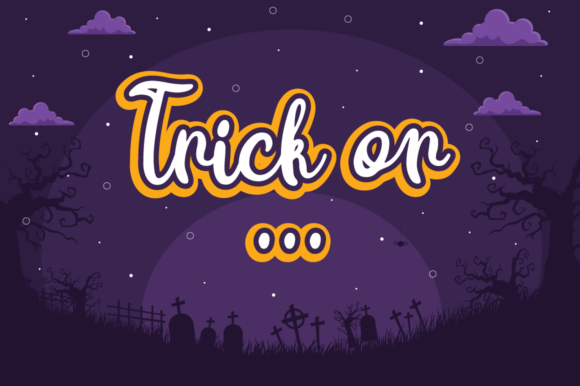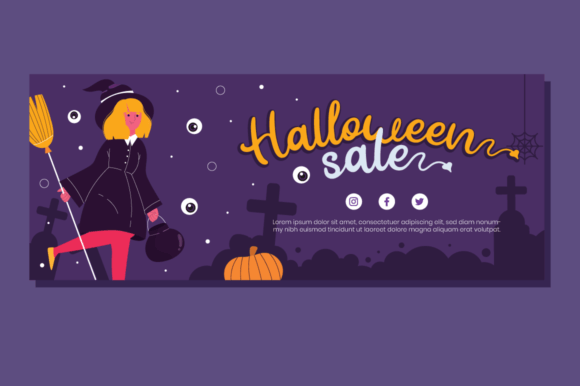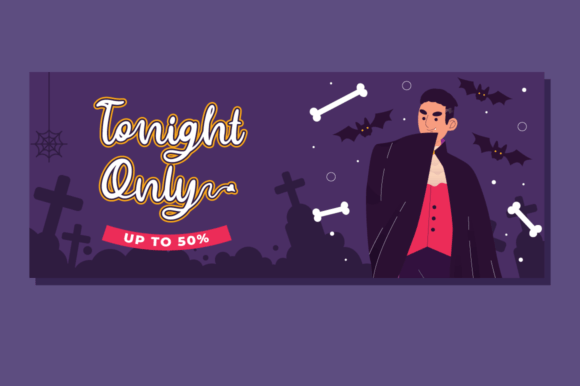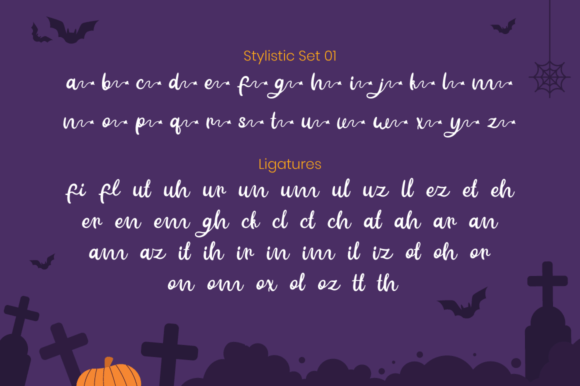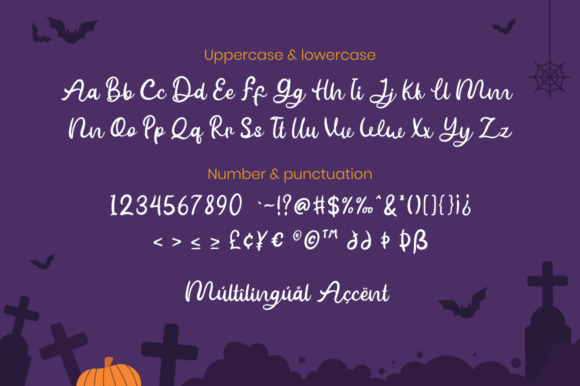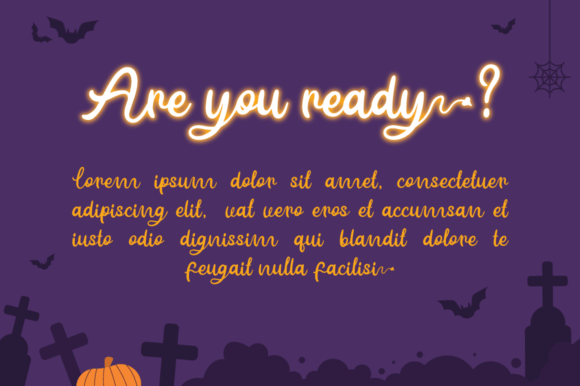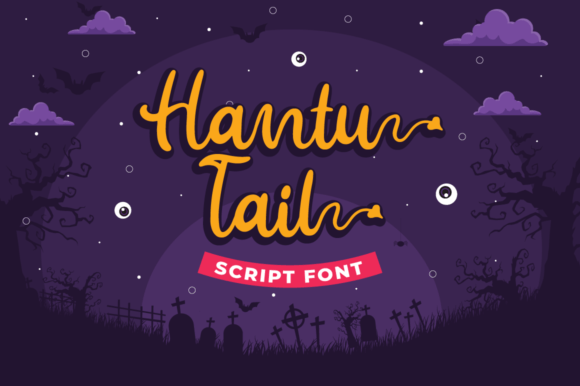
Hantu Tail Font: The Ultimate Halloween Script Font for Designers and Crafters
Are you looking for a font that will add a spooky touch to your designs this Halloween season? Look no further than the Hantu Tail Font! This distinct and incredibly fun Halloween script font is sure to fall in love with its incredibly versatile style, making it perfect for creating spectacular designs that will leave a lasting impression.
What is Hantu Tail Font?
Hantu Tail Font is a unique and creative script font that is specifically designed for Halloween-themed designs. The font features a playful and spooky style, with letters that seem to dance across the page. The font is highly versatile, making it perfect for use in a wide range of design projects, from party invitations and decorations to social media graphics and more.
Key Features of Hantu Tail Font
- Unique and playful design: Hantu Tail Font features a one-of-a-kind design that is sure to stand out from the crowd. The font’s playful style is perfect for creating fun and spooky designs that will delight your audience.
- Highly versatile: The font is highly versatile, making it perfect for use in a wide range of design projects, from party invitations and decorations to social media graphics and more.
Uses of Hantu Tail Font
Hantu Tail Font is a highly versatile font that can be used in a wide range of design projects, including:
- Party invitations: Create spooky and fun party invitations that will set the tone for your Halloween party.
- Decorations: Use the font to create spooky and fun decorations, such as signs, banners, and garlands.
- Social media graphics: Create eye-catching social media graphics that will help you stand out from the crowd.
- Halloween-themed crafts: Use the font to create spooky and fun Halloween-themed crafts, such as cards, gift tags, and more.
Tips for Using Hantu Tail Font
Here are a few tips for using Hantu Tail Font in your designs:
- Experiment with different colors: Hantu Tail Font looks great in a variety of colors, so don’t be afraid to experiment and find the perfect color for your design.
- Use it with other fonts: Hantu Tail Font pairs well with other fonts, so try using it with a bold font to create a fun and playful design.
- Add some spooky effects: Add some spooky effects, such as shadows or glows, to give your design an extra spooky touch.
Hantu Tail Font is a unique and versatile Halloween script font that is perfect for designers and crafters who want to add a spooky touch to their designs. With its playful and fun style, this font is sure to fall in love with its incredibly versatile style, making it perfect for creating spectacular designs that will leave a lasting impression. So why wait? Download Hantu Tail Font today and start creating your own spooky and fun designs!